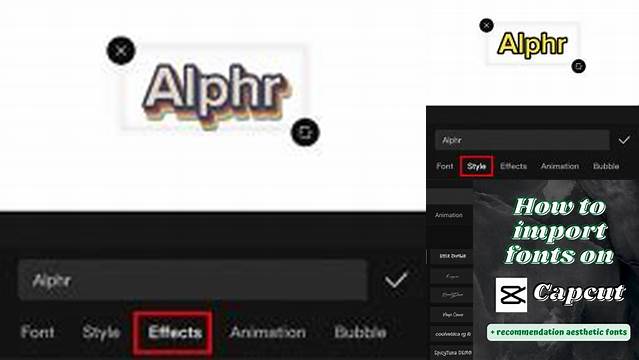
Best Fonts For CapCut Mobile: A Comprehensive Guide
Hey guys! Ever wondered how to make your CapCut videos pop? One of the easiest and most effective ways is by using the right fonts. In this guide, we'll dive deep into the world of fonts for CapCut mobile, covering everything from built-in options to adding your own custom fonts. Let's get started and make your videos look amazing!
Understanding Fonts in CapCut Mobile
Fonts in CapCut mobile are crucial for conveying the right message and aesthetic. Think about it: a playful font for a fun vlog, a sleek font for a professional tutorial, or a bold font for a dynamic action scene. CapCut offers a variety of pre-installed fonts, but understanding how to use them effectively and expand your library can significantly enhance your video editing game. The default fonts are a great starting point, but to really stand out, exploring additional options is key. CapCut’s interface allows you to easily browse and apply different fonts to your text layers, giving you real-time previews of how they look in your project. Beyond the basics, knowing how to adjust font size, color, style, and alignment will give your text a polished and professional appearance. Experimenting with different combinations of fonts and styles can create visually appealing and engaging content that captures your audience's attention. Remember, the goal is to choose fonts for CapCut mobile that not only look good but also complement the overall theme and message of your video. For example, if you’re creating a travel vlog, you might opt for a handwritten-style font to give it a personal touch. On the other hand, if you're producing a corporate presentation, a clean and professional sans-serif font would be more appropriate. By thoughtfully selecting and customizing your fonts, you can elevate the quality of your videos and leave a lasting impression on your viewers. So, take some time to explore the different font options available in CapCut and discover how they can transform your video projects.
Exploring Pre-Installed Fonts
CapCut comes packed with a decent selection of pre-installed fonts for CapCut mobile, suitable for various video styles. These fonts are readily available within the app, making it super convenient to add text to your projects without needing to import anything. You'll find a mix of classic and modern fonts, including serif, sans-serif, handwritten, and display styles. Each font has its unique character and can be used to create different moods and visual effects in your videos. For example, a serif font like 'Times New Roman' or 'Georgia' can give your text a formal and elegant look, while a sans-serif font like 'Arial' or 'Helvetica' provides a clean and contemporary feel. Handwritten fonts, such as 'Brush Script' or 'Comic Sans,' can add a personal and informal touch, perfect for vlogs or creative projects. Display fonts, on the other hand, are designed to grab attention with their bold and decorative styles, ideal for titles or headings. To browse the pre-installed fonts for CapCut mobile, simply open the text tool in your project and scroll through the font list. CapCut provides a preview of each font, allowing you to see how it looks before applying it to your text. You can also adjust the font size, color, and style to further customize the appearance. While the pre-installed fonts are a great starting point, don't be afraid to experiment and try out different combinations to find the perfect fit for your video. Remember, the right font can enhance your message and make your content more engaging and visually appealing. Also, keep an eye out for updates to CapCut, as they often add new fonts to their library, giving you even more options to choose from.
Adding Custom Fonts to CapCut Mobile
Best Font Practices for Mobile Video Editing
When it comes to mobile video editing, using the right fonts for CapCut mobile can make or break your project. Here are some best practices to keep in mind: Firstly, readability is key. Choose fonts that are easy to read on smaller screens. Avoid overly decorative or complex fonts that can be difficult to decipher, especially for viewers watching on their phones. Secondly, consider contrast. Make sure your text has sufficient contrast against the background to ensure it stands out. Light text on a dark background or dark text on a light background generally works well. Thirdly, keep it simple. Limit the number of fonts you use in a single video. Using too many different fonts can create a cluttered and unprofessional look. Stick to a maximum of two or three fonts that complement each other. Fourthly, pay attention to font size. Adjust the font size to ensure it's large enough to be easily read, but not so large that it dominates the screen. Test your video on different devices to see how the text looks. Fifthly, use animation and effects sparingly. While CapCut offers various text animation and effects, overuse can be distracting. Use them judiciously to emphasize key points or add visual interest. Finally, be consistent. Use the same fonts and styles throughout your video to maintain a cohesive look and feel. Consistency helps to create a professional and polished final product. By following these best practices, you can ensure that your text is not only visually appealing but also effectively communicates your message to your audience. So, take the time to choose the right fonts for CapCut mobile and apply them thoughtfully to elevate the quality of your videos.
Choosing the right fonts for CapCut mobile can truly transform your videos. Whether you stick with the pre-installed options or venture into adding custom fonts, understanding how to effectively use fonts is key. By following the tips and best practices outlined in this guide, you'll be well on your way to creating visually stunning and engaging videos that capture your audience's attention. So, go ahead, experiment with different fonts, and let your creativity shine! Happy editing, guys!